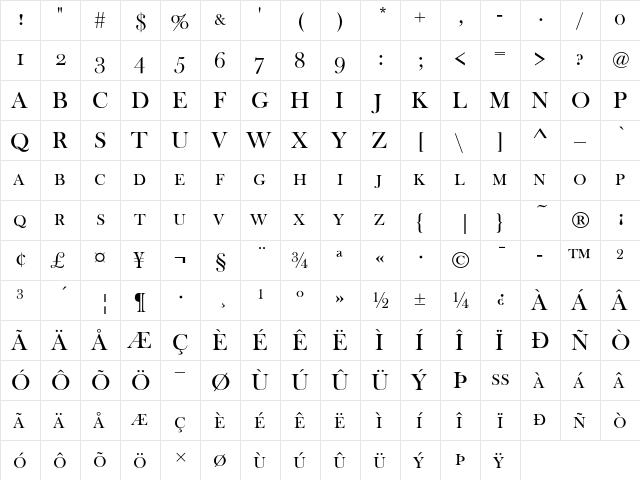
Baskerville Old Face SC D Regular
Design Context for Baskerville Old Face SC D Typeface
Baskerville Old Face SC D offers clean, dependable letterforms without strong stylistic allegiance, making it a practical choice for designers who need flexibility.